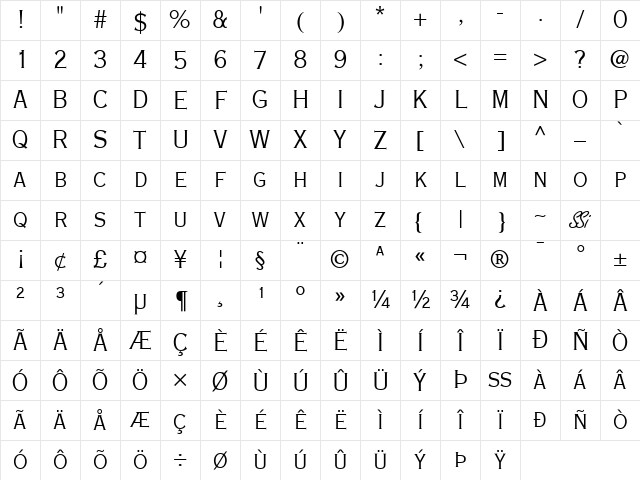
Copperplate Light Condensed SSi Light Condensed Free Font
Copperplate Light Condensed SSi Light Condensed
Style: Light Condensed
Design Context for Copperplate Light Condensed SSi
Copperplate Light Condensed SSi is a composed and adaptable typeface that performs quietly and consistently across a wide range of design contexts. Its slender proportions lend an understated elegance to any composition. Its narrow stance lets it pack a punch even in space-constrained designs.